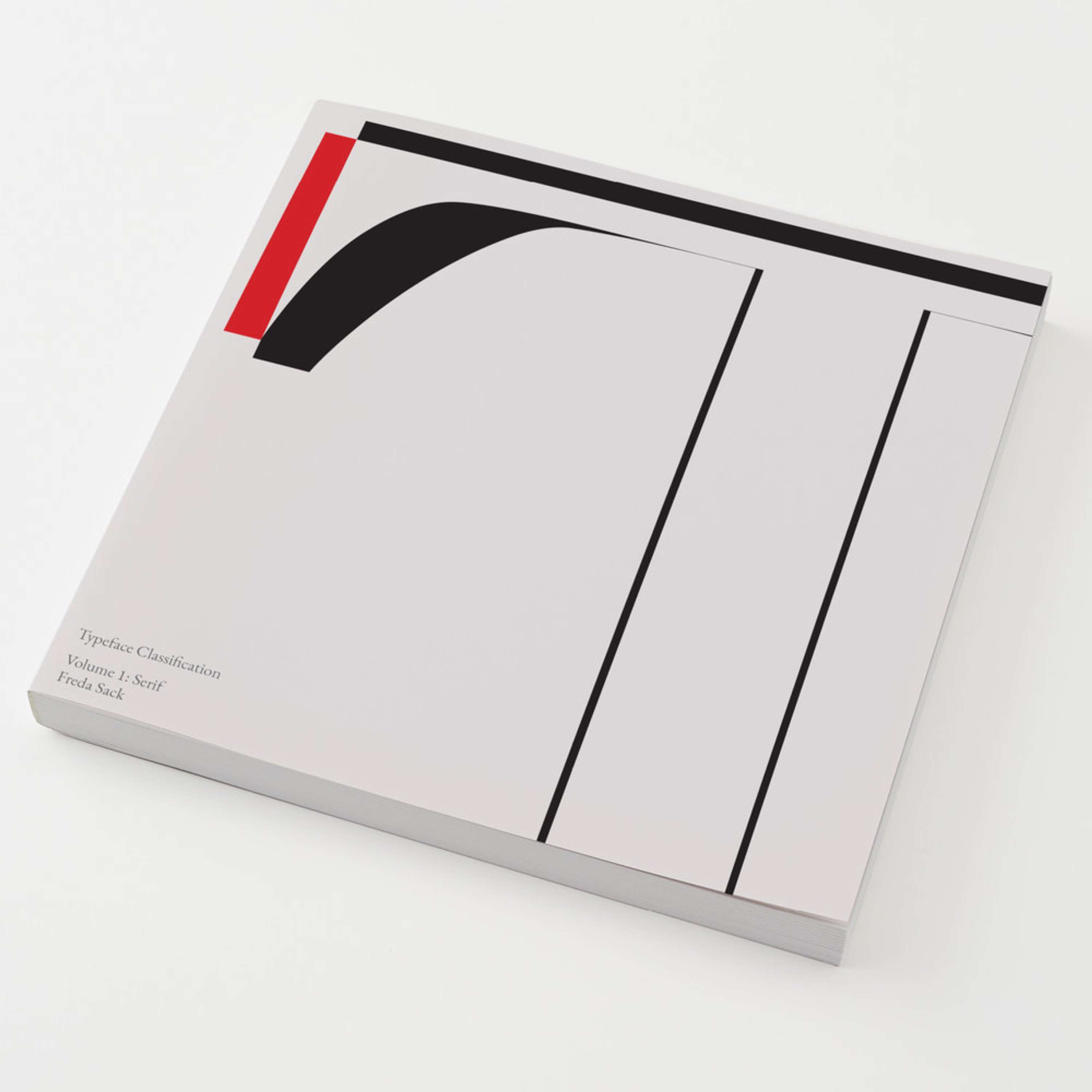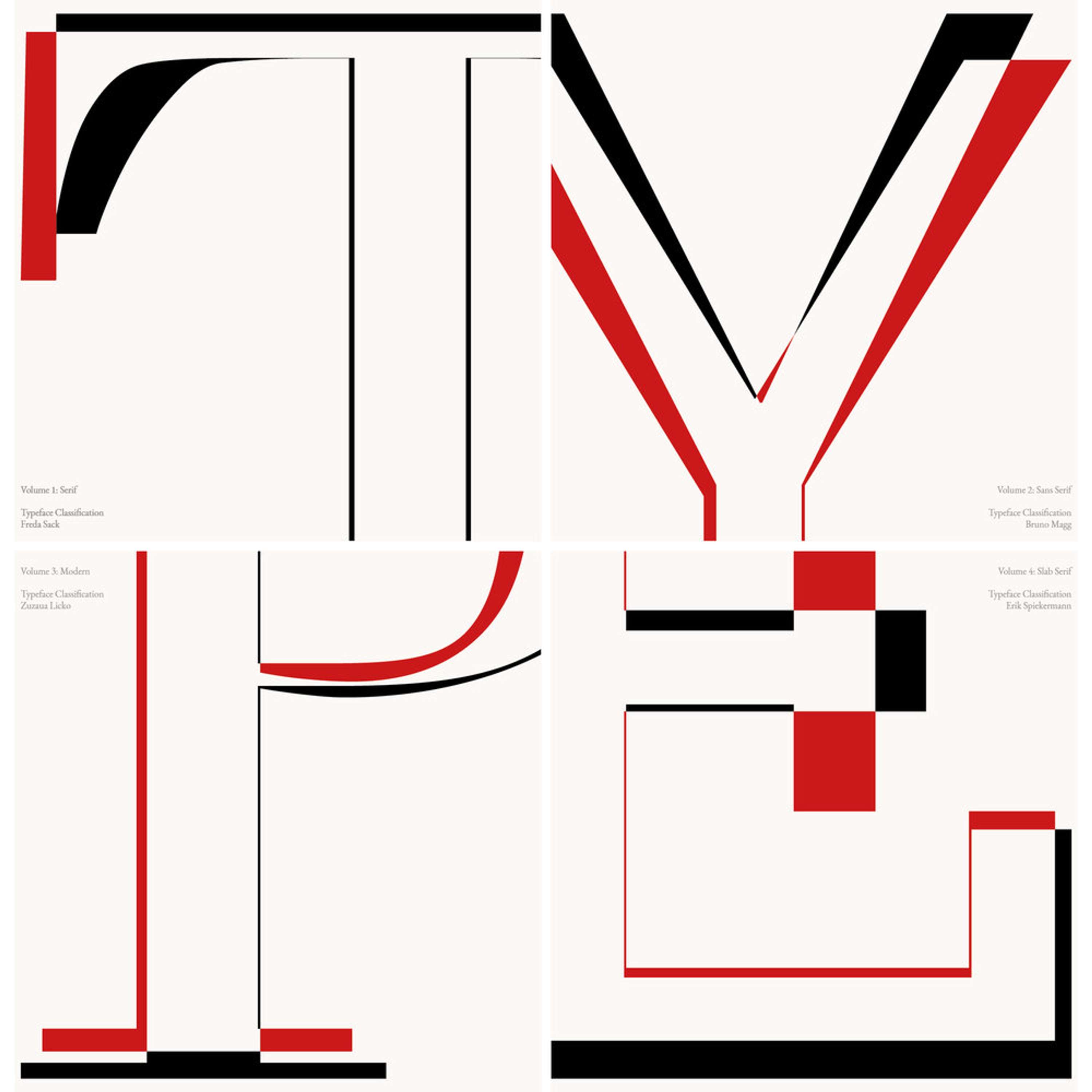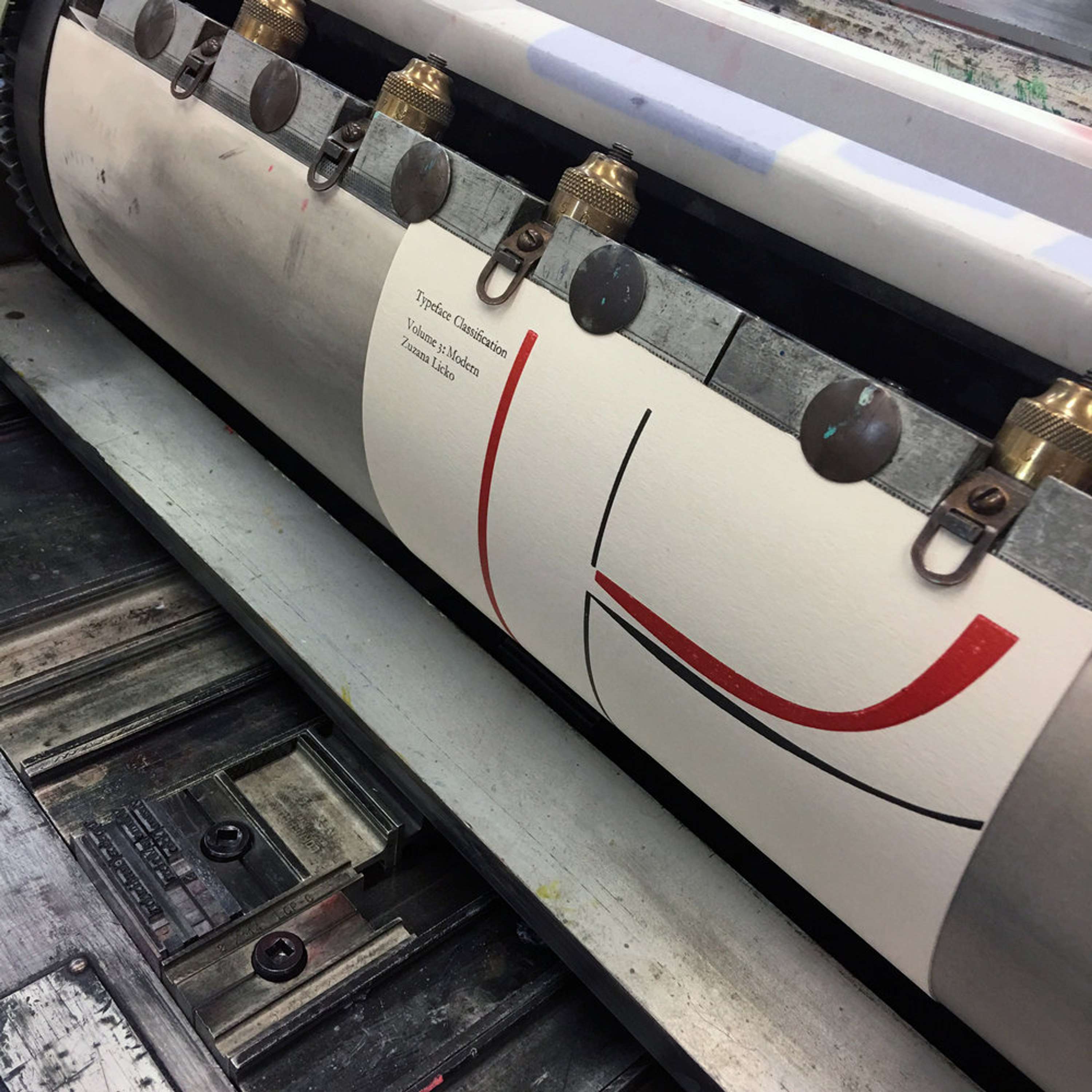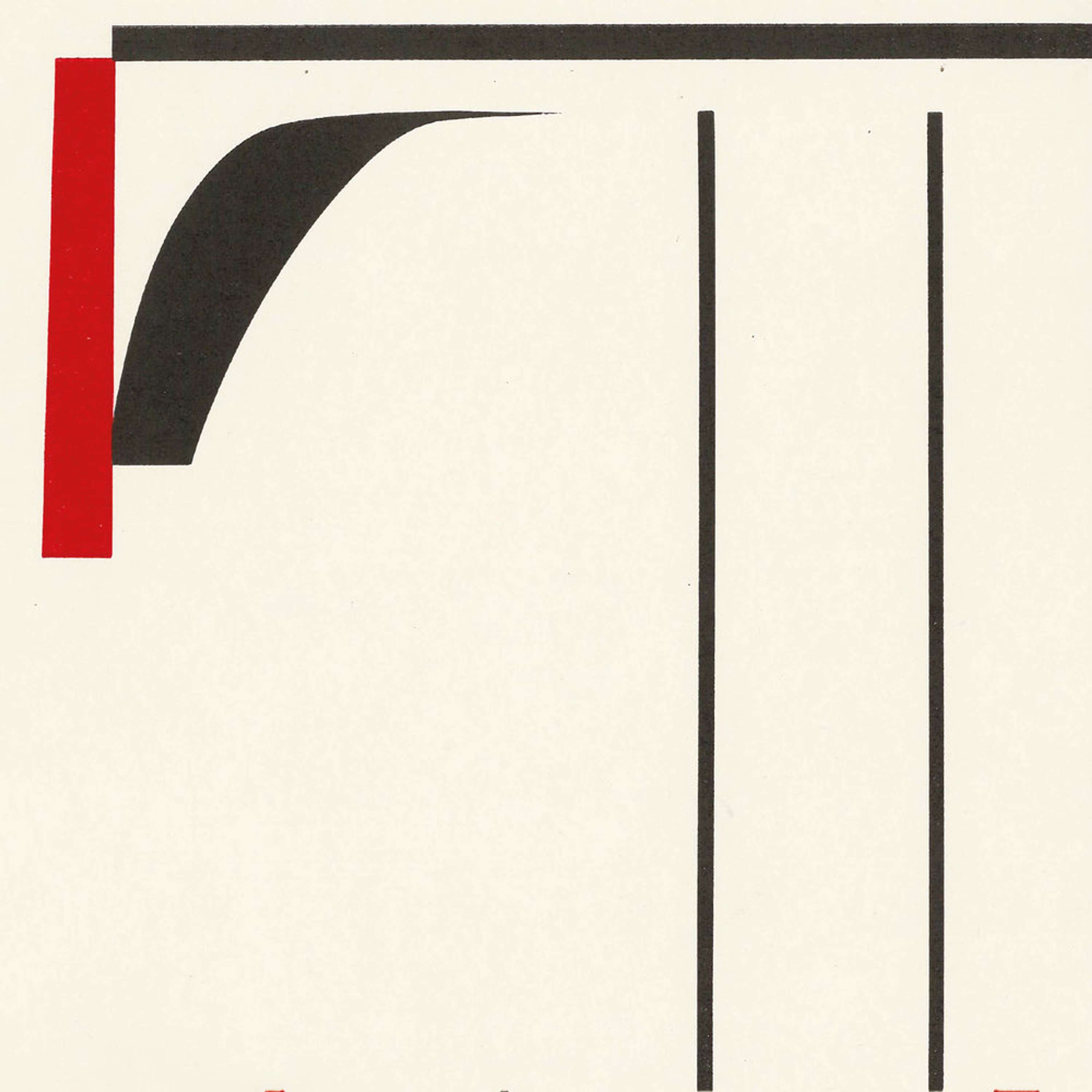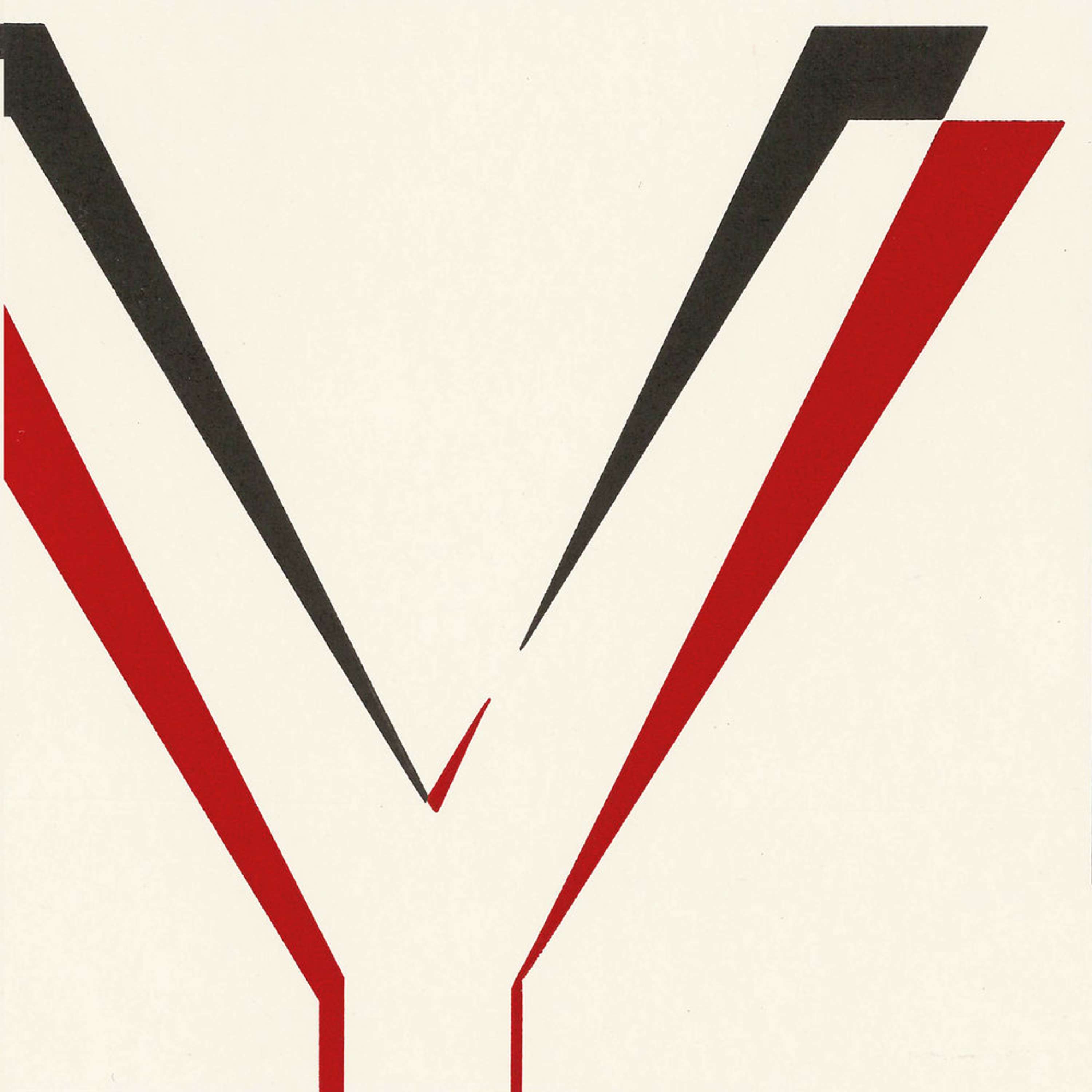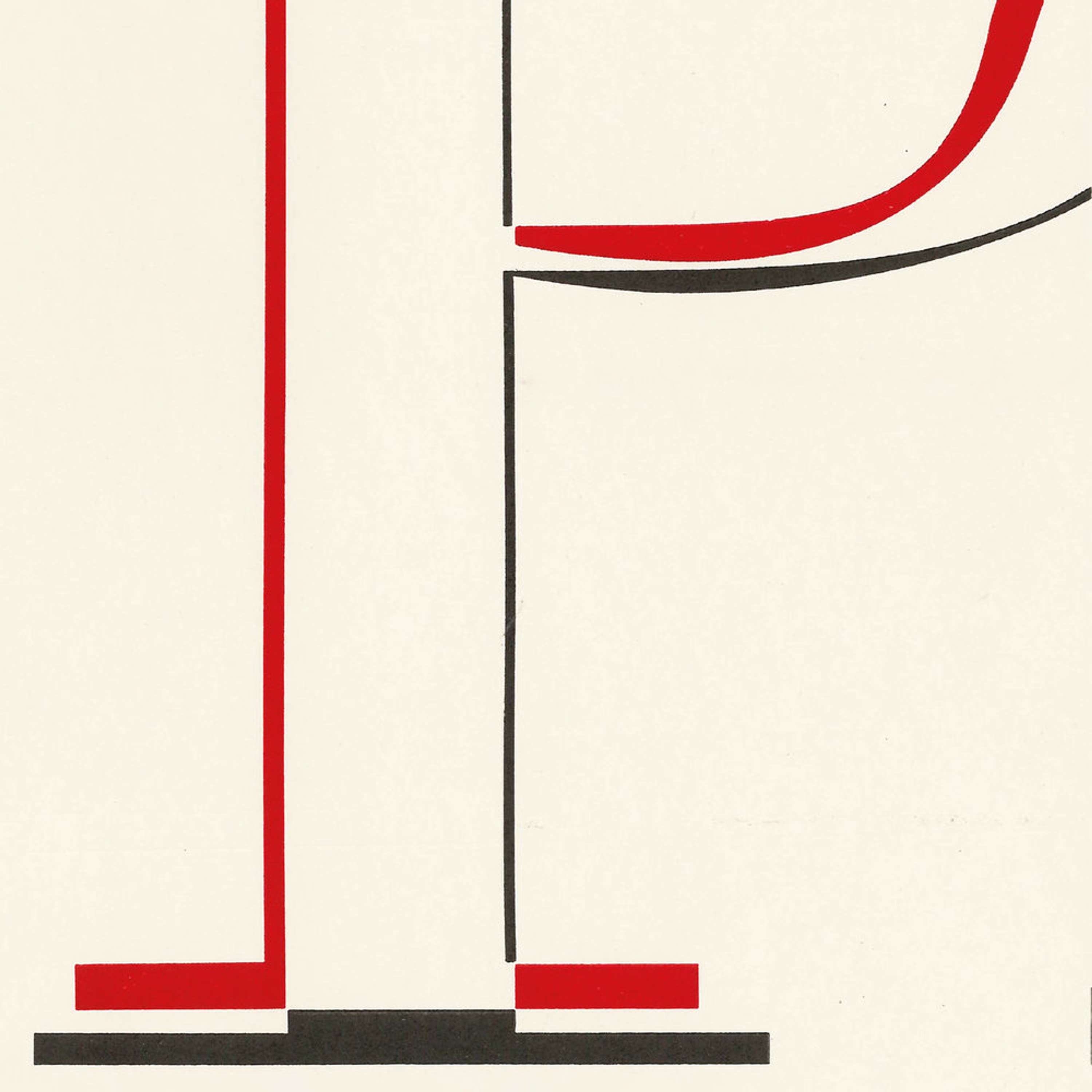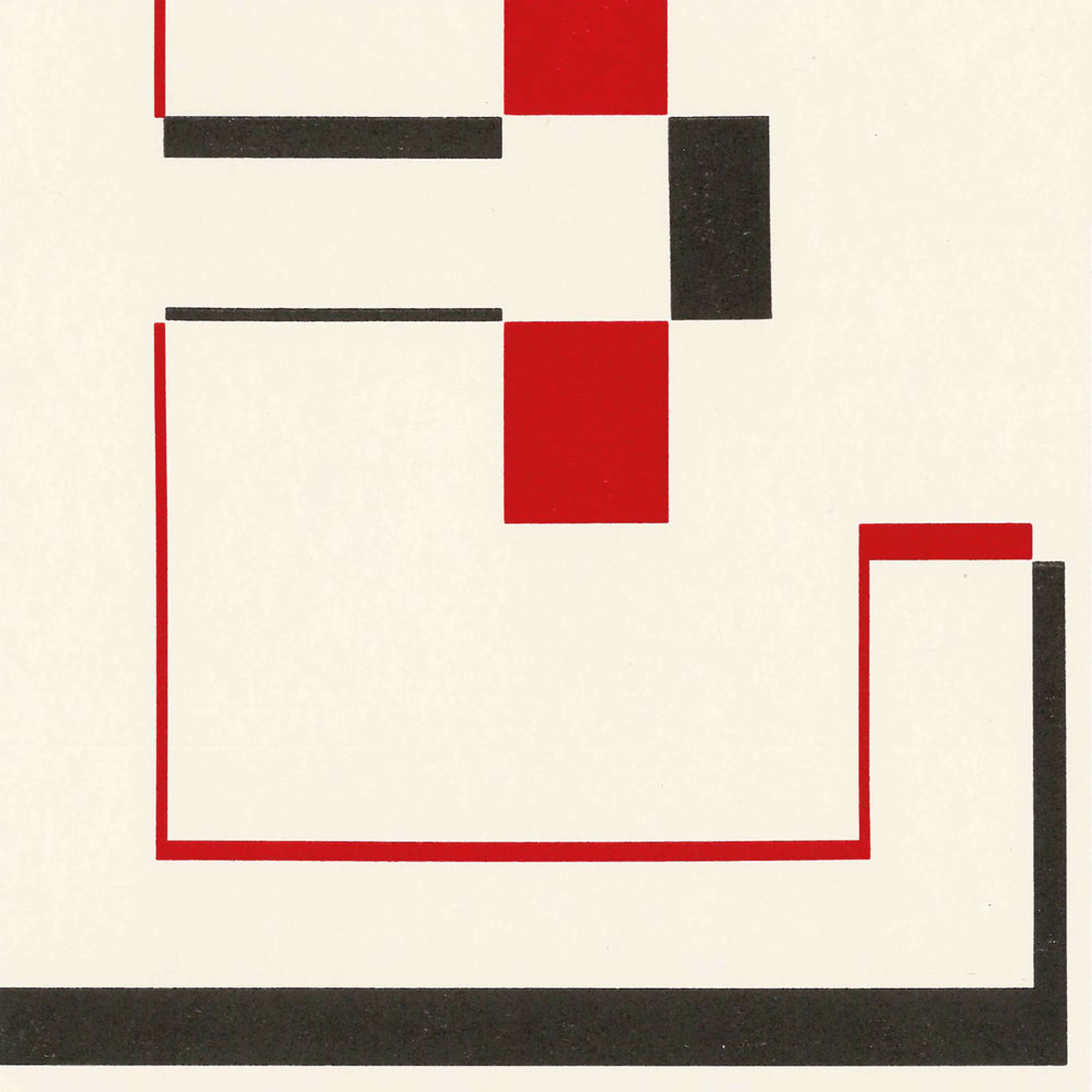
Typeface Classification Book Cover Design
These book covers explore the differences between different font classes using the comparative forms of two fonts within the same class; namely modern, sans serif, serif and slab serif. I developed my ideas in letterpress creating laser cut blocks for printing the cropped letterforms using acrylic before printing, aligning and overprinting in the letterpress workshop. Each cover can be considered individually or as a whole to spell ‘TYPE’
Typeface Classification Book Cover Design by Emilia Kalyvides